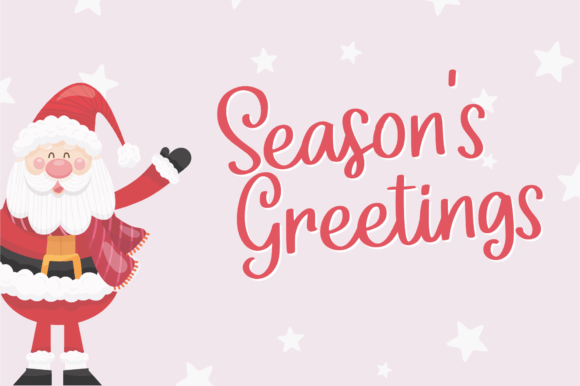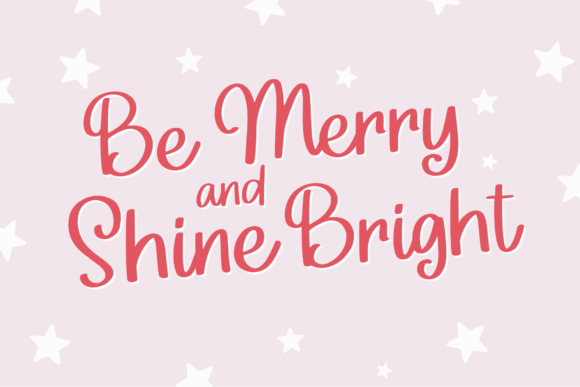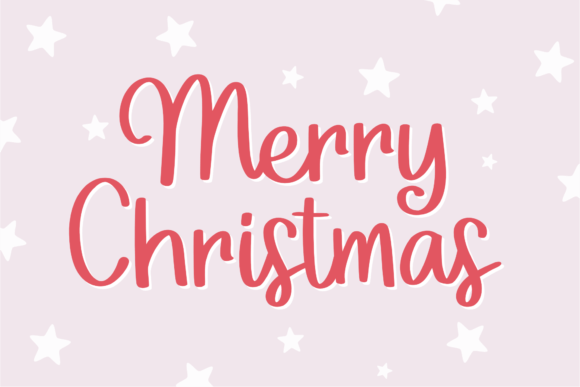
Sweet Reindeer Font
Sweet Reindeer is a sweet and beautiful handwritten font. Featuring characters that dance along the baseline, this font will add a cozy accent to any design project you wish to create!